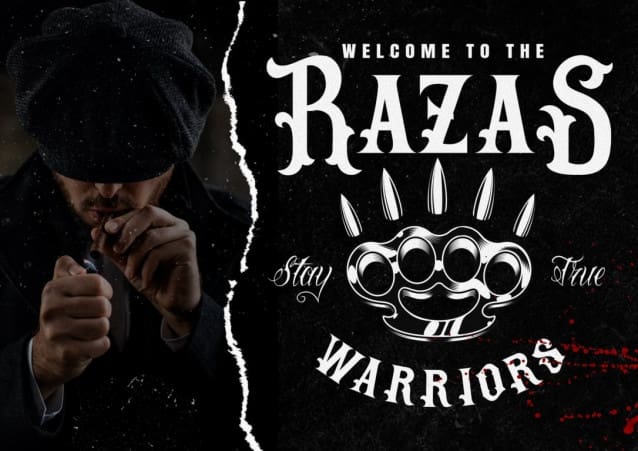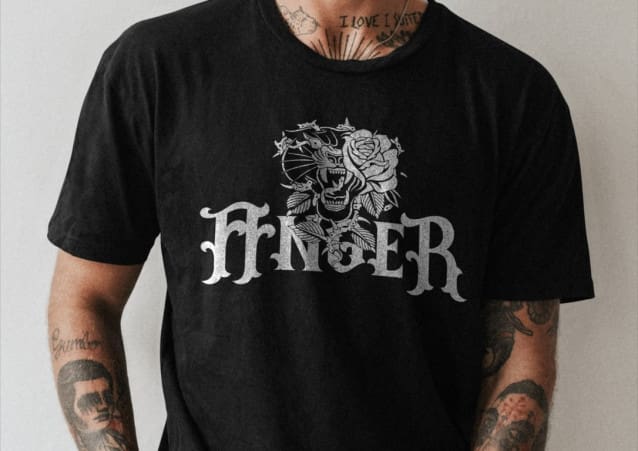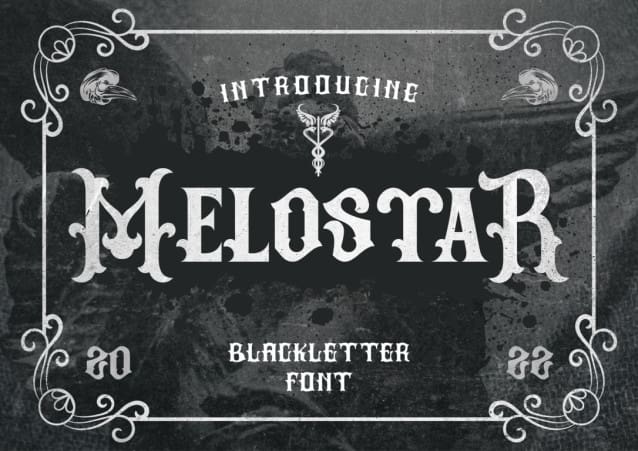
Melostar Blackletter Font
Melostar Blackletter Font, a one-of-a-kind blackletter decorative font. This font is perfect for a wide range of projects, including gothic lettering, tattoos, headlines, posters, magazines, newspapers, t-shirts, labels, and any other design that requires a striking typeface. Melostar adds a distinctive touch to your designs, making them truly stand out.